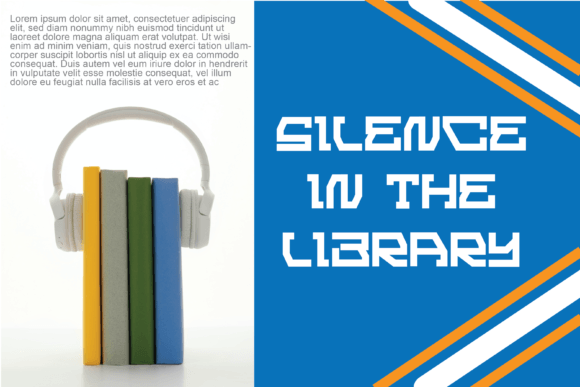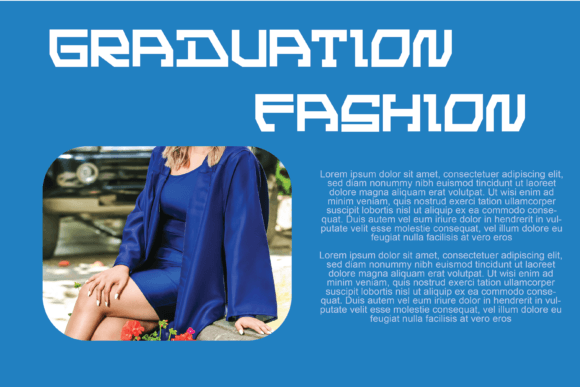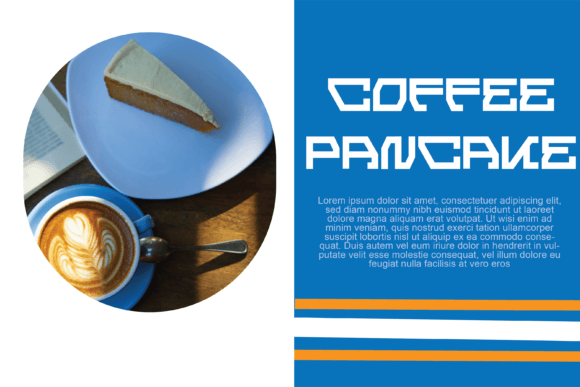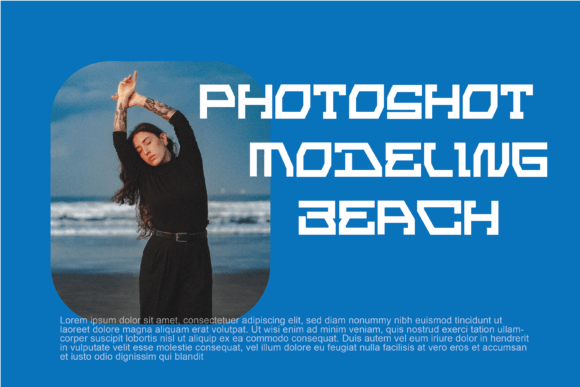
Introducing College Font: Elevate Your Designs with Luxury and Elegance
In the world of typography, a font can make or break a design. For designers and crafters seeking to add a touch of luxury and sophistication to their work, College Font is an excellent choice. This elegant typeface is specifically designed to bring a high-end feel to various design projects, making it perfect for packaging designs, fashion branding, fragrance and cosmetics packaging, social media posts, and more.
The Story Behind College Font
College Font is a thoughtfully crafted typeface aimed at achieving a luxurious aspect in any design. Its creation was inspired by the need for a font that exudes elegance, refinement, and high-end quality. Whether you’re working on a branding project, packaging design, or social media content, College Font is designed to help you create visually stunning and sophisticated designs.
Key Features of College Font
- Elegant and Luxurious Design: College Font boasts a sleek and refined design, making it perfect for projects that require a touch of luxury.
- Versatility: This font can be used across various design projects, from packaging and branding to social media posts and more.
- High-Quality Typography: With its clear and precise letterforms, College Font ensures that your designs stand out with professionalism and sophistication.
Use Cases for College Font
College Font’s versatility makes it suitable for a wide range of design applications. Here are some of the best use cases for this elegant typeface:
- Packaging Designs: Add a luxurious touch to your product packaging with College Font. It’s perfect for high-end products, cosmetics, and fragrances.
- Fashion Branding: Elevate your fashion brand with a sophisticated font that communicates luxury and style.
- Fragrance and Cosmetics Packaging Designs: Create stunning packaging for fragrances and cosmetics that stand out on store shelves.
- Social Media Posts: Use College Font to create eye-catching social media content that reflects your brand’s luxury and elegance.
Tips for Using College Font Effectively
To get the most out of College Font, here are some tips for using it effectively in your designs:
- Pair it with Neutral Colors: Combine College Font with neutral colors like black, white, or pastel shades to let the font’s elegance shine.
- Experiment with Sizes: Play with different font sizes to create visual hierarchy and emphasize key messages.
- Add Texture and Patterns: Incorporate textures and patterns that complement the luxurious feel of College Font.
| Font Name | College Font |
| Author | hl_studio |
College Font is a powerful tool for designers and crafters looking to add a touch of luxury and elegance to their work. With its elegant design, versatility, and high-quality typography, this font is perfect for a wide range of design projects. By incorporating College Font into your designs, you can create visually stunning and sophisticated work that stands out from the crowd. So why wait? Use College Font with confidence in your creations and witness amazing results.